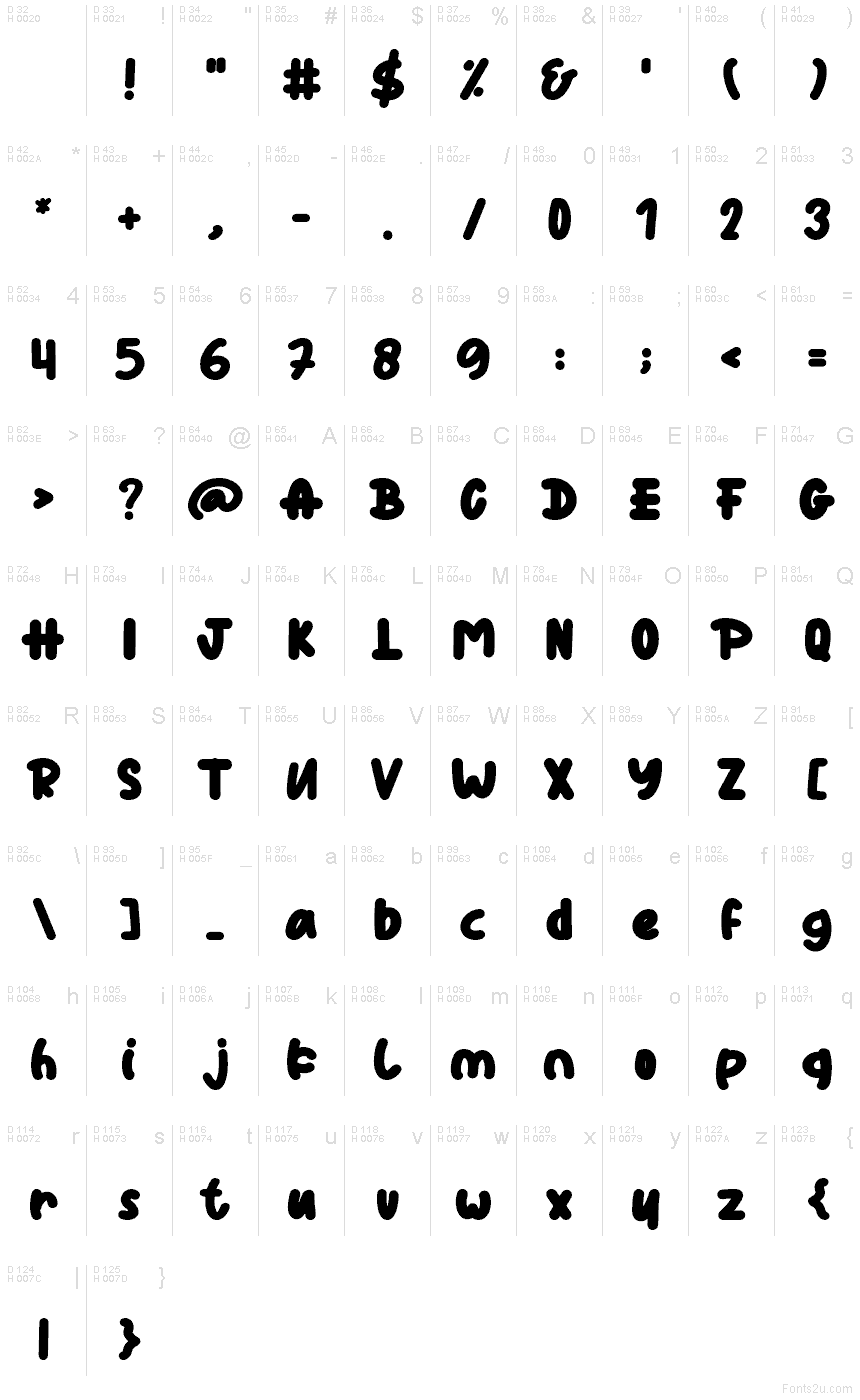
Father's Silhouette
Father's Silhouette font by Wildan Type is a bold handwritten typeface with a casual, artistic, and slightly whimsical feel. It enjoys an irregular thickness that results in some shaded areas within each letter where the strokes merge—an aesthetic that will increase the quality of any design or print project. Overall, it features smooth curves and gives off a relaxed vibe.
It’s an amazing free handwritten font to use in headlines, posters, flyers, quotes, minimalist magazine covers or layouts, Instagram captions (or any social media), advertisements for mom-and-pop shops or family cafés/restaurants/businesses. Other use cases include product packaging design ideas/logos dedicated to Father’s Day!